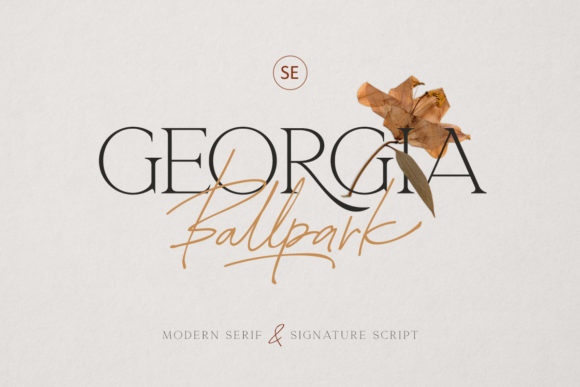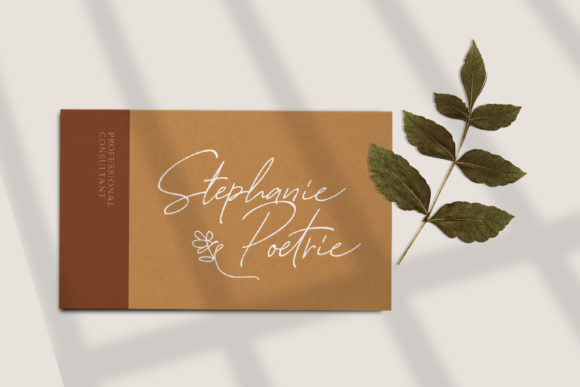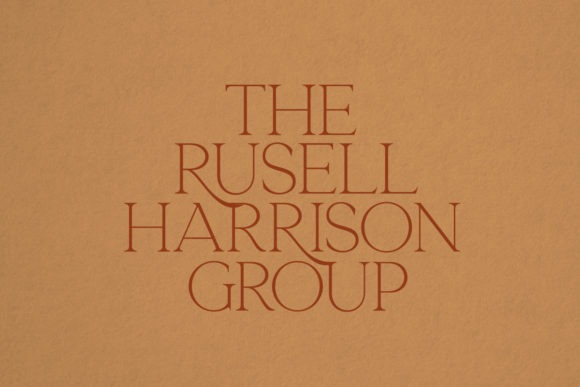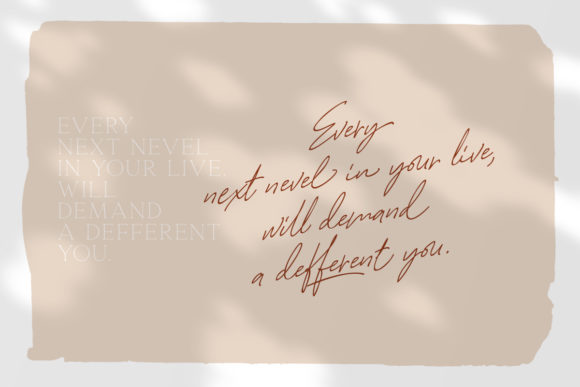
Georgia Ballpark Font
About the Georgia Ballpark Font
Unleash your creativity with Georgia Ballpark Font, a versatile font perfect for a wide range of applications. Georgia Ballpark is a spectacular duo font (serif and script). Incredibly elegant and versatile, this font fits a wide pool of designs, elevating them to the highest levels. Add this font to your favorite creative ideas and notice how it makes them come alive!
Georgia Ballpark’s elegant serif and flowing script work best for headlines, logos, and short-form text in branding materials or invitations. Its refined aesthetic is ideal for projects requiring a touch of sophistication, such as luxury goods packaging or high-end event posters. However, its delicate script is less suitable for body text or UI elements where readability at smaller sizes is crucial.
The serif component’s strong verticality lends itself well to pairing with geometric sans-serif fonts like Futura or a clean, modern sans-serif like Lato for a balanced contrast. For a more playful feel, consider pairing the script with a rounded sans-serif such as Nunito. Avoid pairing it with overly ornate or heavily textured fonts, which would visually clash with its refined character.
Georgia Ballpark projects an overall sophisticated and slightly playful personality. It’s best suited to brands aiming for a premium feel without appearing overly stuffy or formal.
Georgia Ballpark Font Usage Examples
Georgia Ballpark Font Example